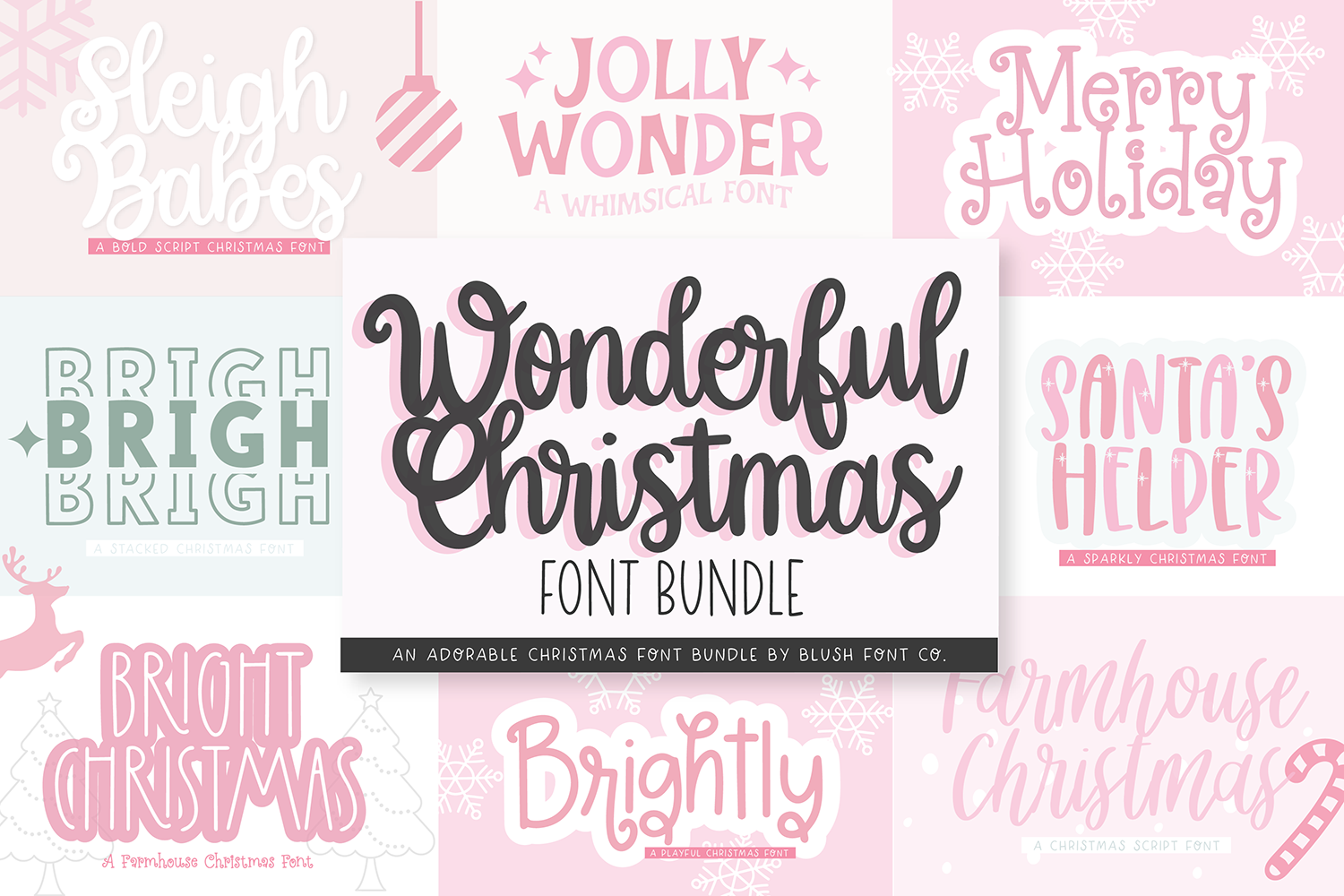
WONDERFUL CHRISTMAS Font Bundle
Our newest Christmas bundle is here! Grab these 8 new and FUN Christmas fonts in one download, for huge savings! These fonts are going to be perfect for all of your cute Christmas crafts, like Christmas decor, sweaters, and party invitations! The 8 fonts included are:
MERRY HOLIDAY JOLLY WONDER BRIGHT CHRISTMAS SLEIGH BABES SANTA'S HELPER BRIGHTLY FARMHOUSE CHRISTMAS BRIGHT STACKED